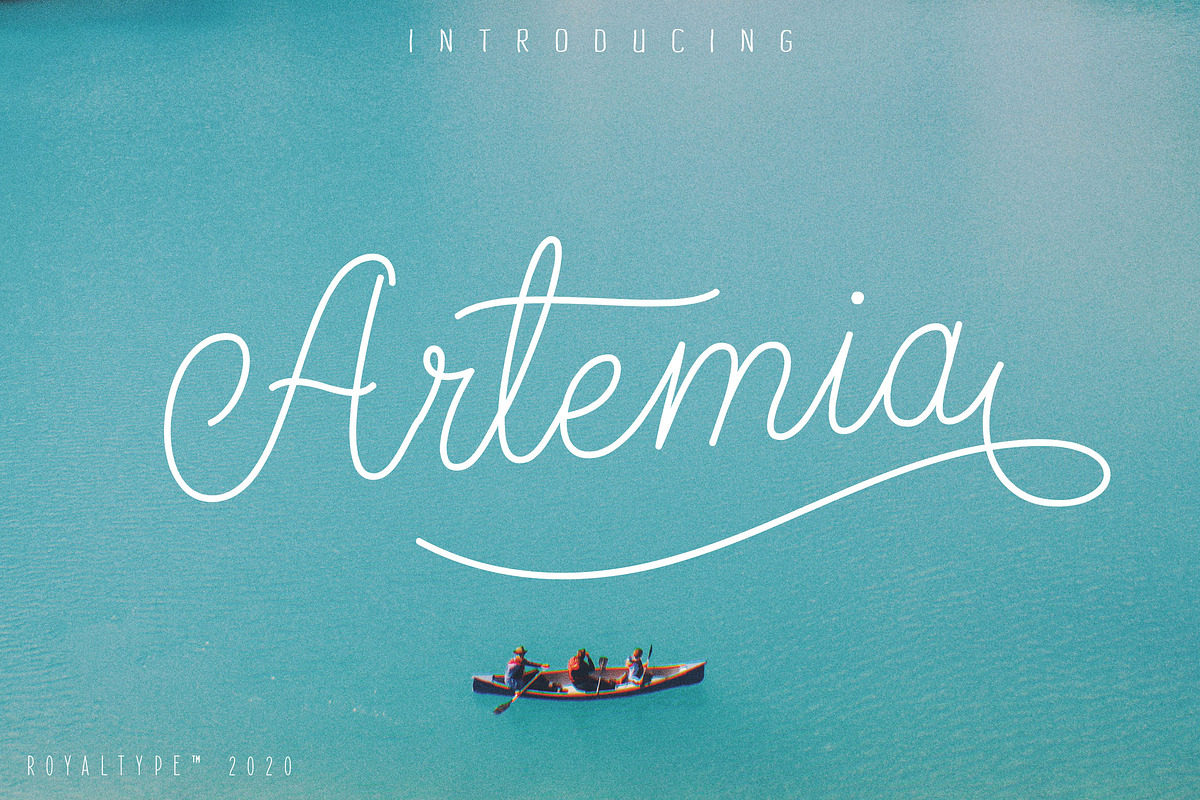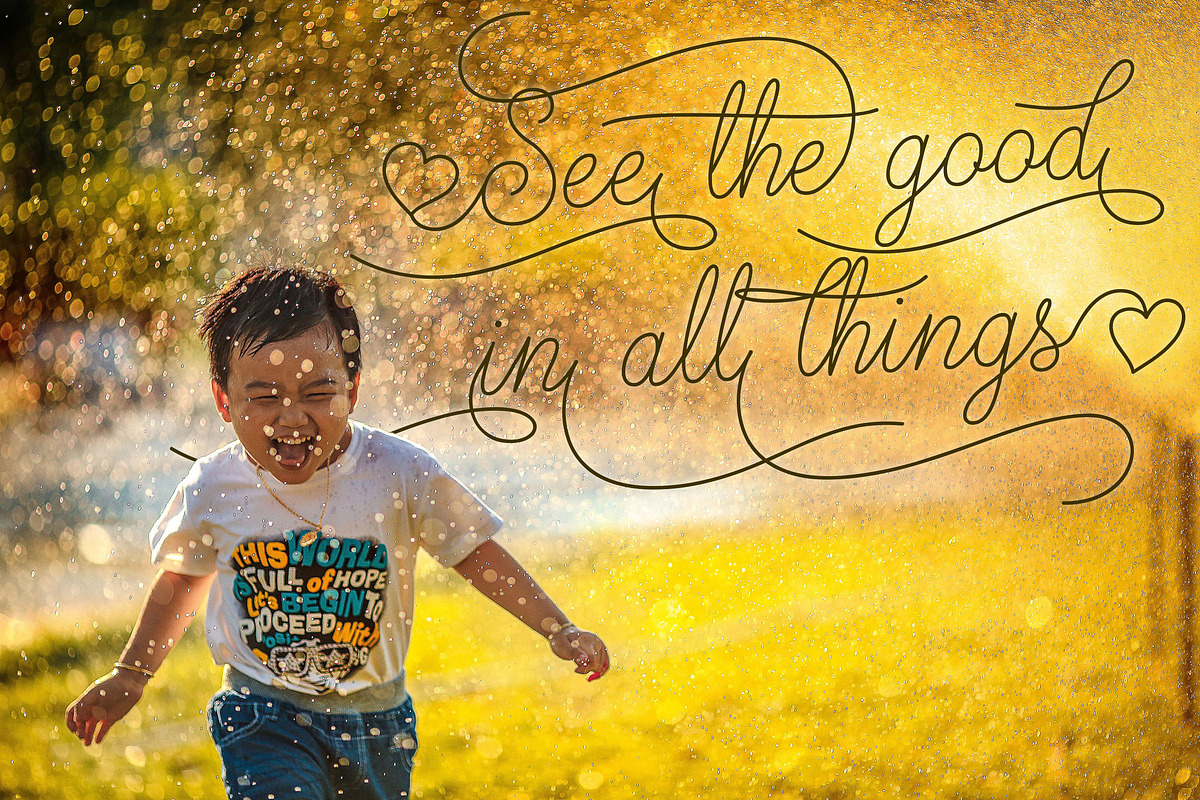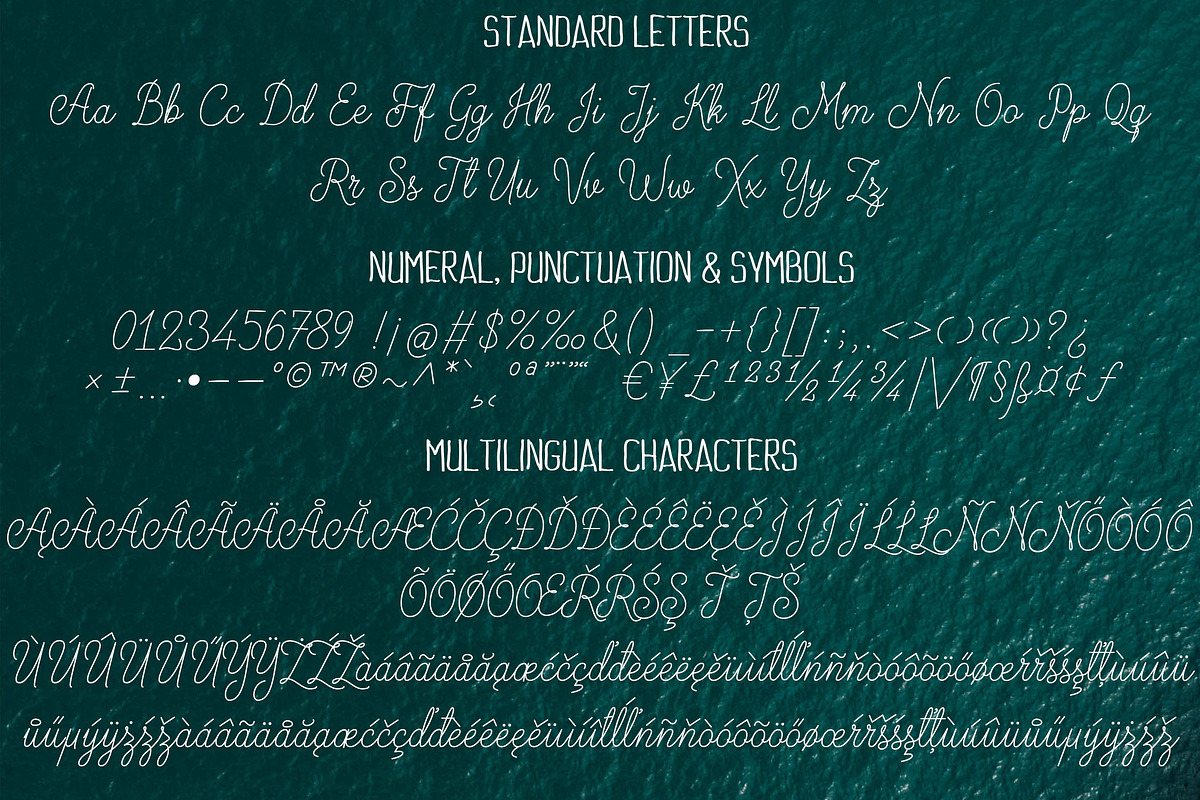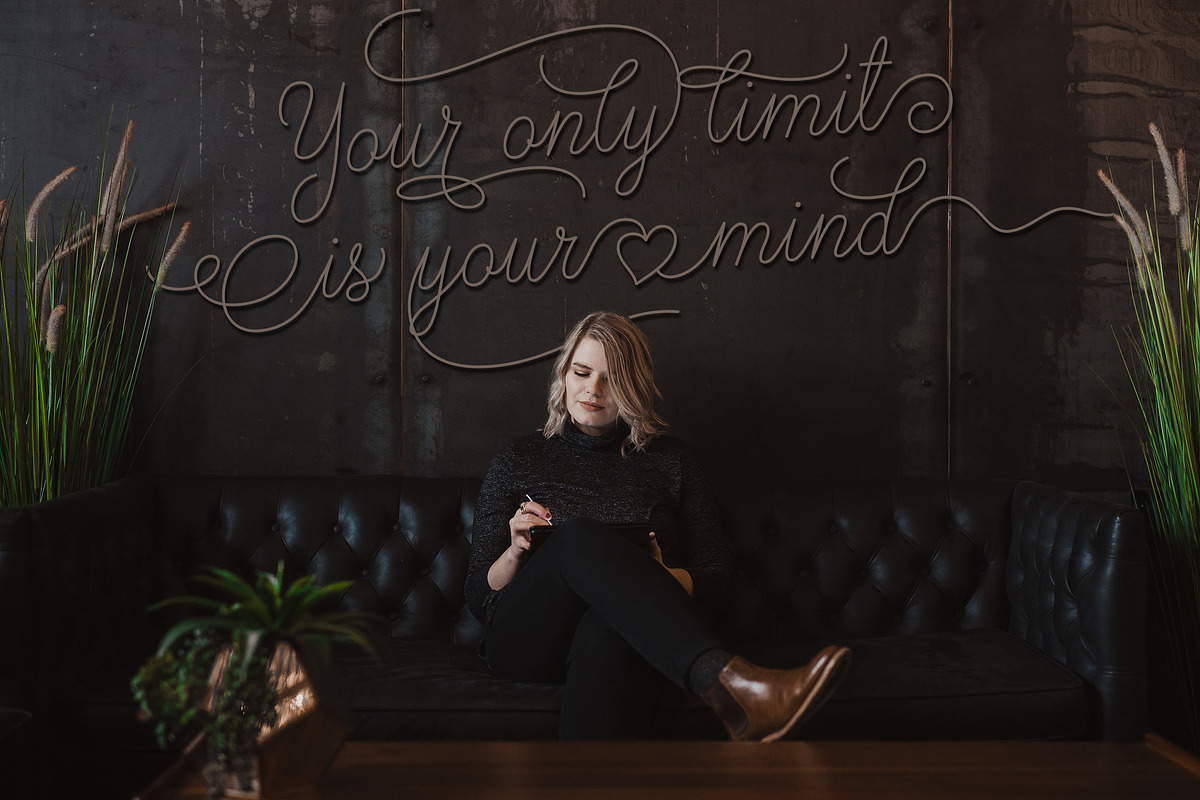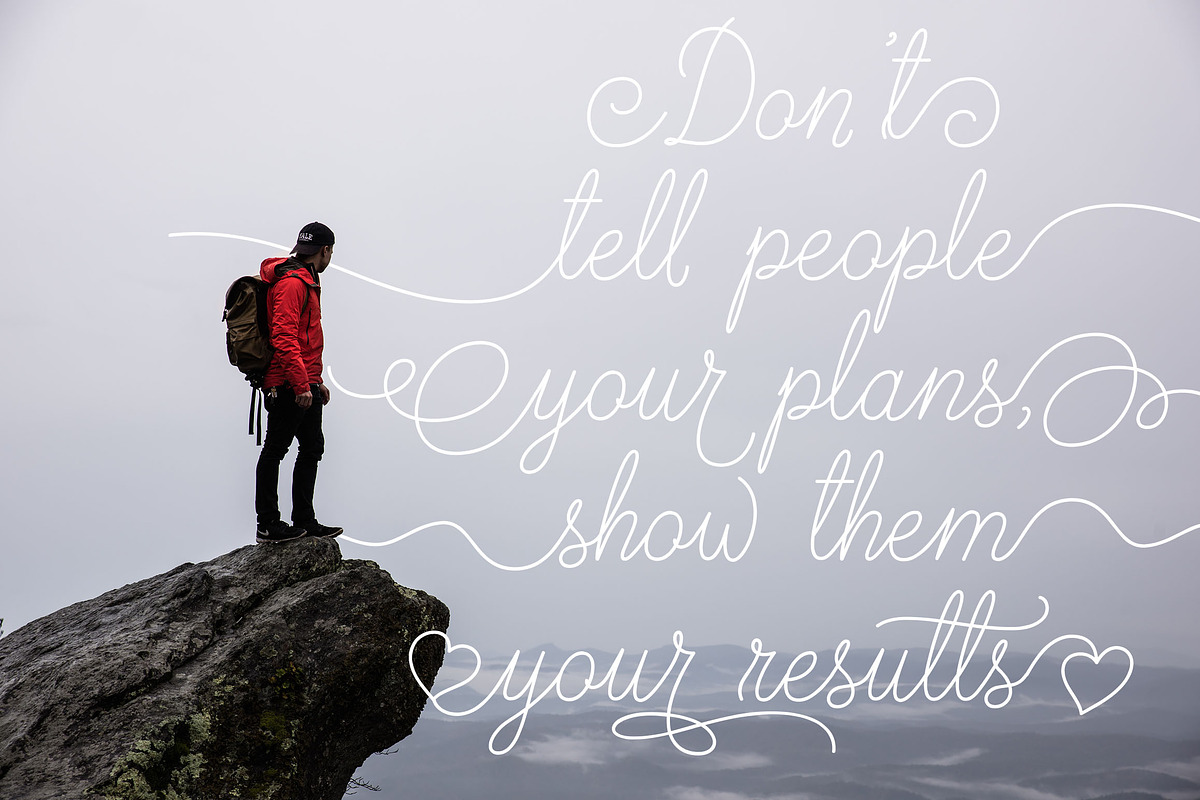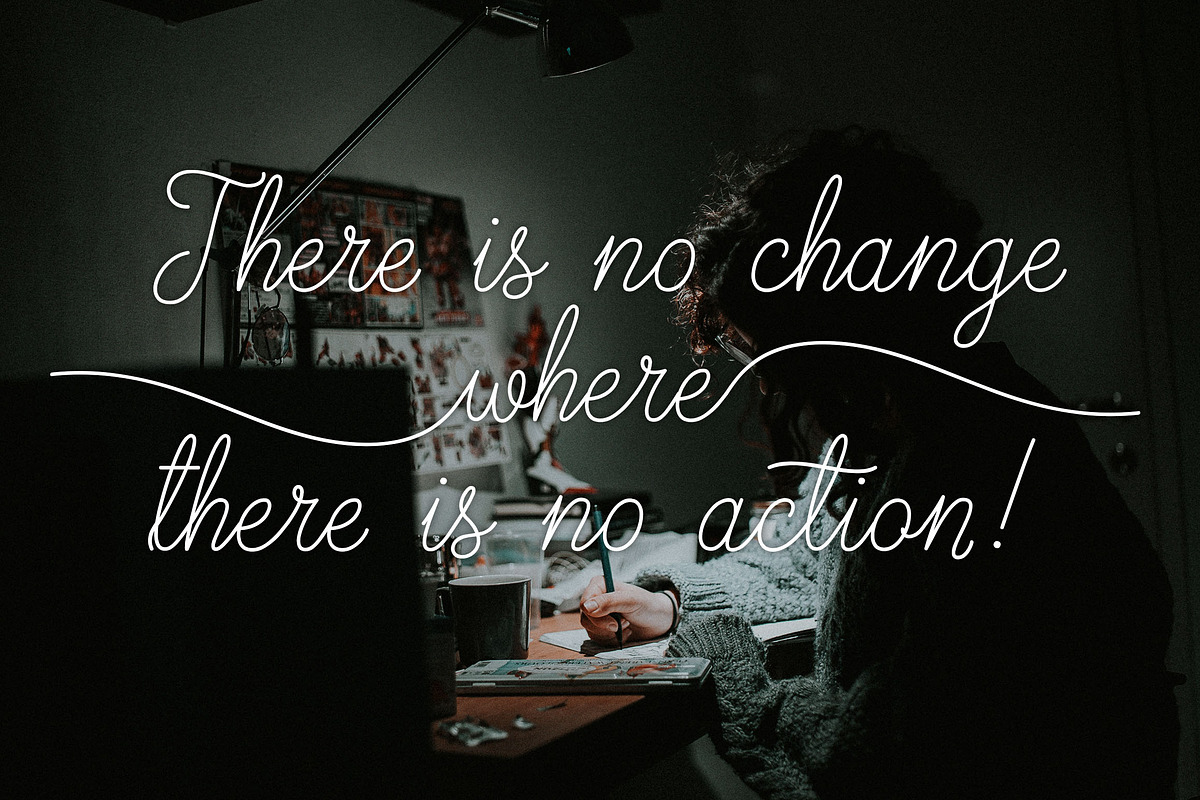
Artemia Script
Introducing a new cool script font named "Artemia" a fish food species. This font have semi formal/neat style of script. This font will suitable for wide topic/use, such as be wedding invitation font, title, subtitle, banner, flyer, magazine, text, mug, T-shirt, etc.
Font Feature:
- Supported to Basic Latin , Eastern Europe, Turkish, and Baltic characters.
- 112 alternate characters.
- 9 Extended Swash tail for left side and right side.